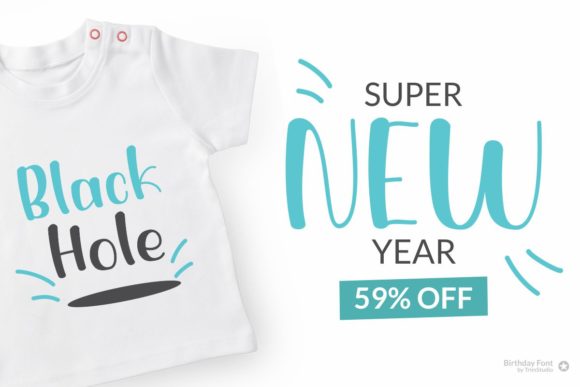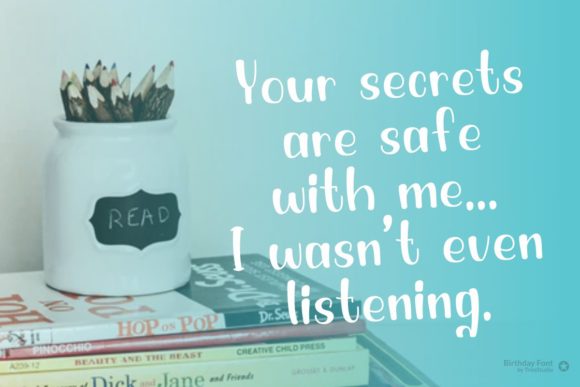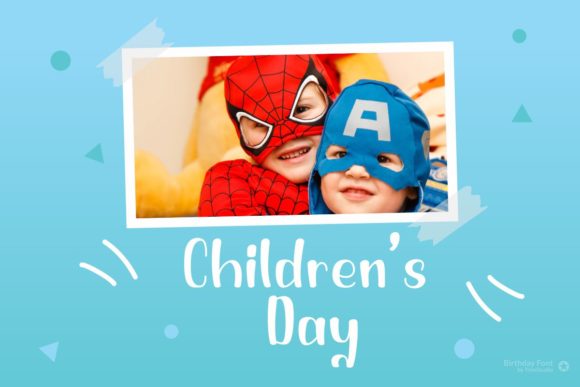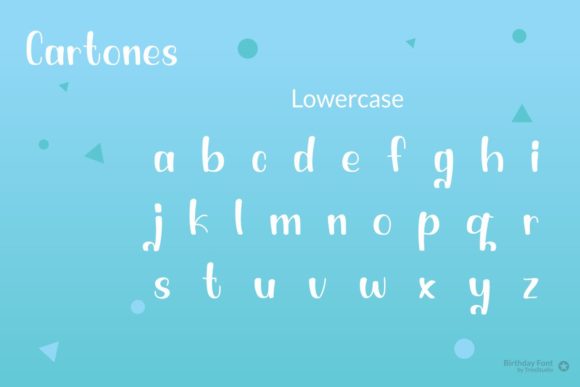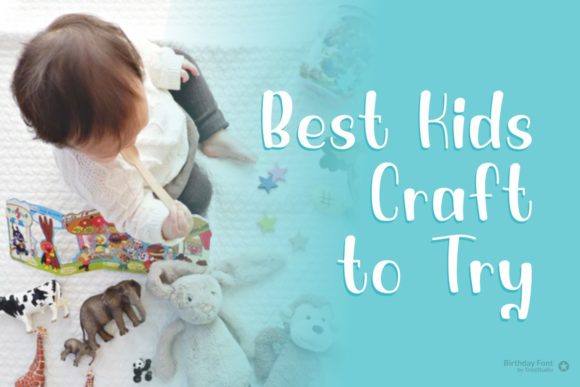
The Birthday Font: A Quirky Display Font to Bring Joy to Your Designs
I’ll never forget the time I was working on a birthday card design for a client’s kid’s party invitation. I had all the elements in place – the colorful graphics, the fun illustrations, and the playful layout – but something was missing. The font I was using just didn’t have the right vibe. It was too serious, too formal, and totally not festive. That’s when I stumbled upon the Birthday font, and it completely transformed my design. In this article, I’ll share my love for this quirky display font, its features, and how to make the most of it in your designs.
My Love Affair with Birthday Font
The Birthday font is a game-changer for any designer, crafter, or creative hobbyist looking to add a touch of whimsy to their projects. Here are the things I love about it:
• ✨ Unique and quirky design that adds a playful touch to any project
• ✅ Highly legible, even at larger font sizes
• 🎉 Perfect for birthday-themed designs, but also versatile enough for other fun and playful projects
A Few Quirks to Keep in Mind
While I adore the Birthday font, there are a few things to keep in mind:
• 🤔 The font can be a bit over-the-top for more formal projects. Use it sparingly and with intention.
• ⚠️ Some characters may not be suitable for small font sizes, so be sure to test it out before finalizing your design.
The Story Behind Birthday Font
The Birthday font was designed by a talented type designer who wanted to create a font that would bring joy and whimsy to people’s designs. Inspired by childhood birthday parties and the magic of celebration, this font is the perfect way to add a touch of fun and playfulness to your projects.
Is the Birthday font suitable for body text? While the Birthday font is highly legible, it’s best suited for display text or headings. For body text, you may want to choose a more traditional font.